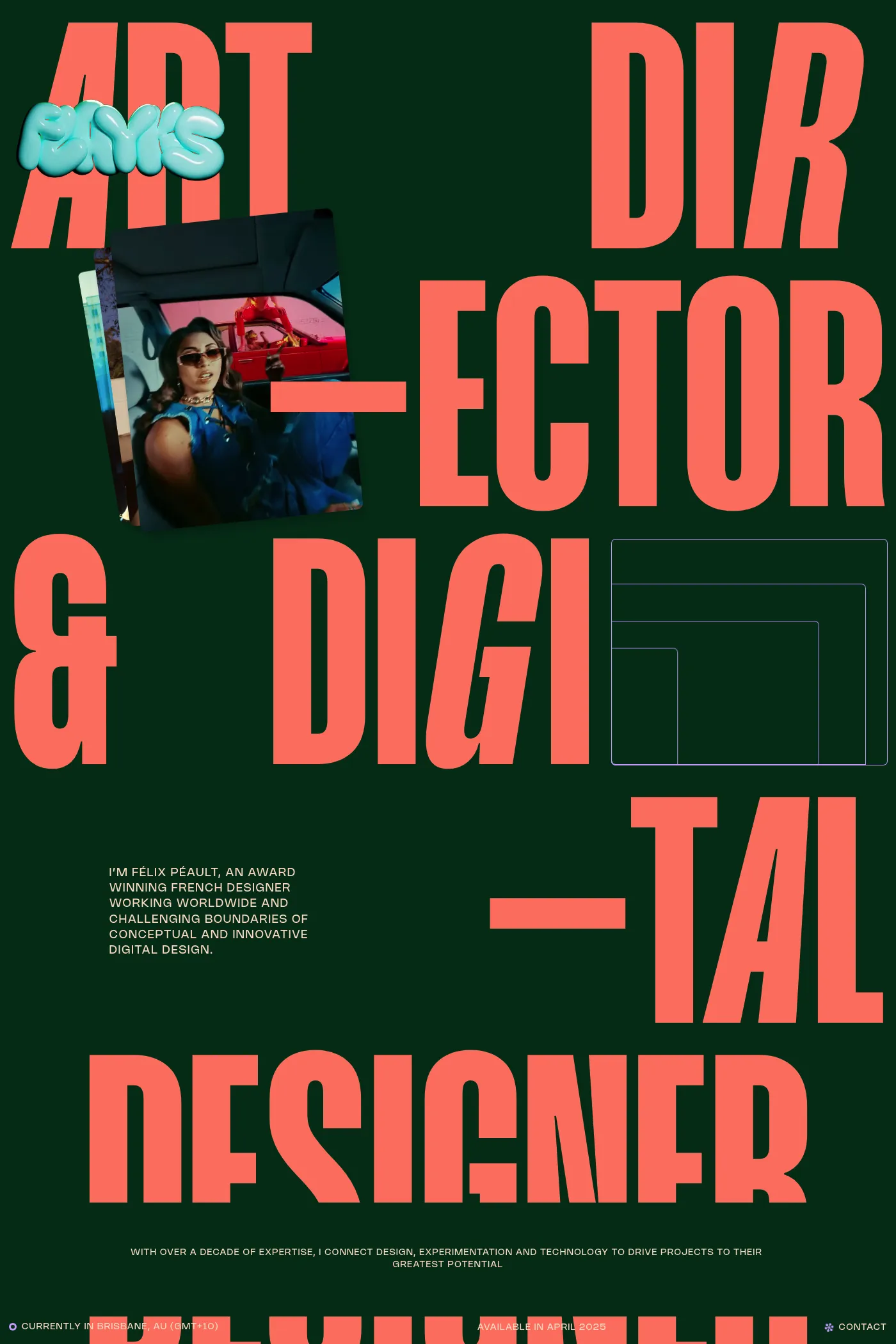
NOHEMI™ is a sans serif typeface, and has nine weights, making it a universal typeface. Its neutral design and subtle character suit diverse projects, from branding and advertising to editorial and Product design. NOHEMI™ is available for both commercial and personal projects, and you can download it for free or pay what you want to support my work.
A1 features 1 website using NOHEMI™. It leans towards Big type, Colourful, and Condensed font design styles, and it’s most often built with Astro.